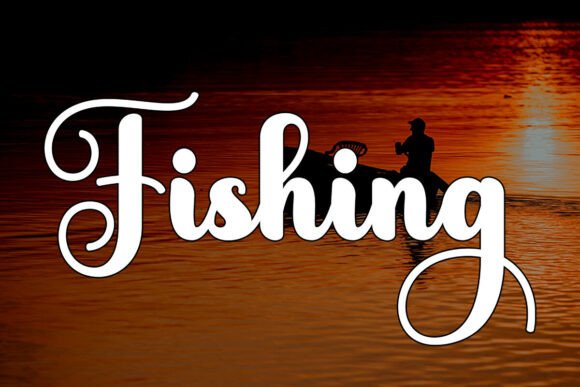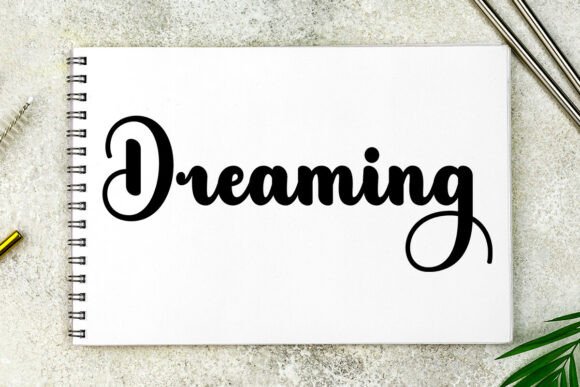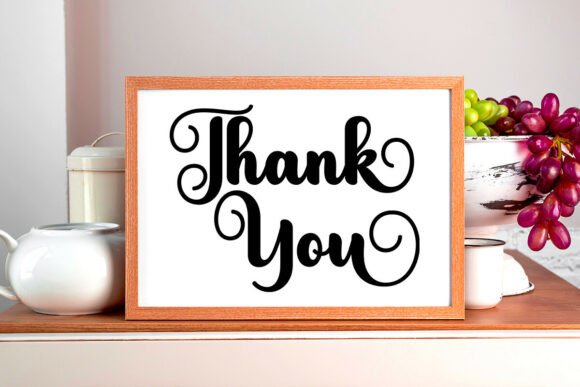
Introduction to Kayla Magnolia Font
Have you ever been stuck on a design project, pouring over fonts and color palettes, searching for that perfect combination that will elevate your work from ordinary to extraordinary? For designers, finding the right font can be a game-changer, making all the difference in a creative project’s success.
One such font that has captured the hearts of many designers is the Kayla Magnolia Font. This enchanting modern calligraphy font exudes elegance and sweetness, making it an ideal choice for a wide range of design applications.
Whether you’re working on a wedding invitation, creating a logo, or designing product packaging, the Kayla Magnolia Font is a valuable resource that will add a touch of luxury and romance to your work.
Key Features of Kayla Magnolia Font
- High-quality design for a creative project, ideal for various applications, including digital art, graphic design, and more.
- Transparent background, allowing for seamless integration into any design, making it a valuable design resource.
- Resolution: Optimized for high-resolution displays, ensuring crisp and clear typography at any zoom level.
- Unique, elegant, and sophisticated design, perfect for adding a touch of sophistication to any creative project.
Honest Review: Kayla Magnolia Font
As a designer, I’m always on the lookout for high-quality design resources to elevate my creative projects. The Kayla Magnolia Font caught my eye, and I’m excited to share my honest review with you.
- ✨ Beautiful, elegant script style that’s perfect for adding a touch of sophistication to any design project.
- ✨ High-quality font files that ensure crisp, clear rendering on various devices and platforms.
- ✨ Transparent background, making it easy to place over any image or background without any issues.
Any limitations:
- ⚠️ Limited font sizes and styles available, which may limit its versatility for more complex design projects.
- ⚠️ Not ideal for bold or sans-serif font needs, as it’s primarily a script font.
Overall, I’m impressed with the Kayla Magnolia Font, and I think it’s a great addition to any designer’s toolkit. Its elegant script style and high-quality rendering make it perfect for a variety of creative projects, from wedding invitations to branding materials.
Tips for Getting the Most Out of Kayla Magnolia Font
For the best results, pair the Kayla Magnolia Font with high-quality images and design elements. Experiment with different font sizes and colors to create a visually appealing design. You can also use the font’s transparent background to create a sense of depth and dimension in your designs.
Common Use Cases for Kayla Magnolia Font
The Kayla Magnolia Font is perfect for a variety of creative projects, including branding, marketing materials, and digital art. Its high quality and versatility make it an ideal design resource for both beginners and experienced designers.